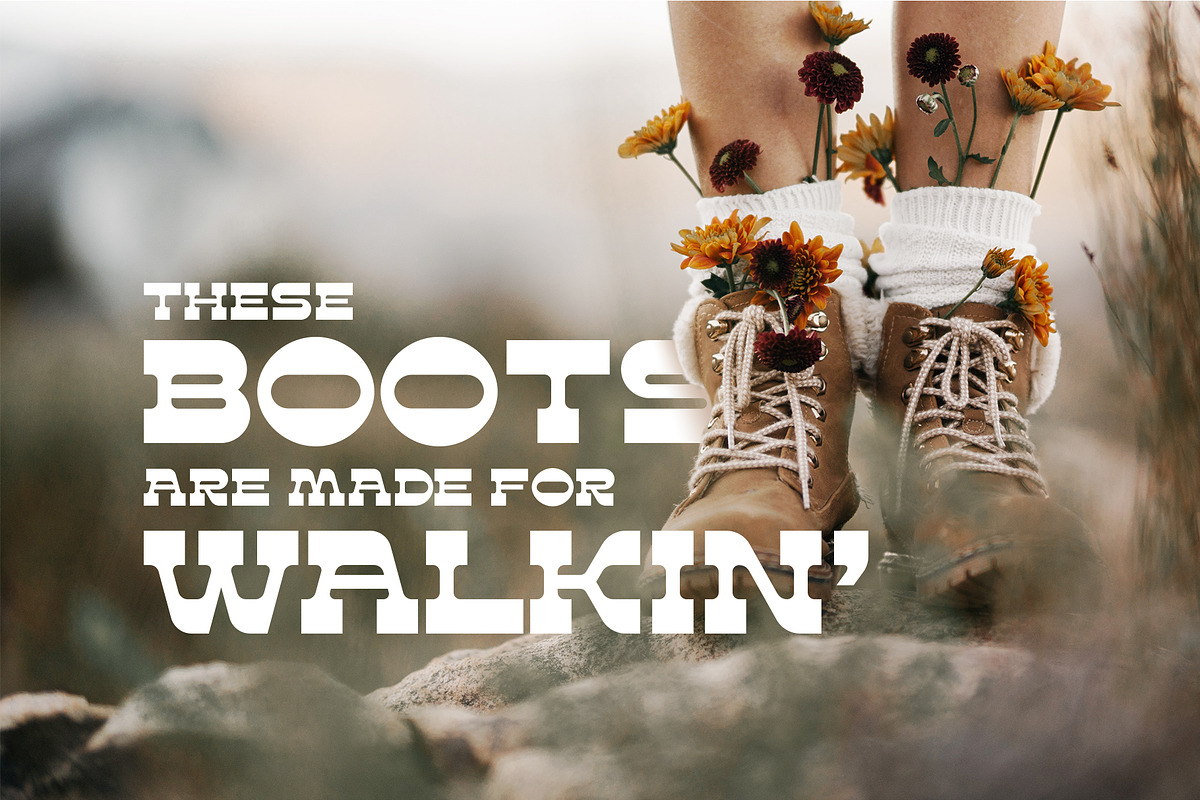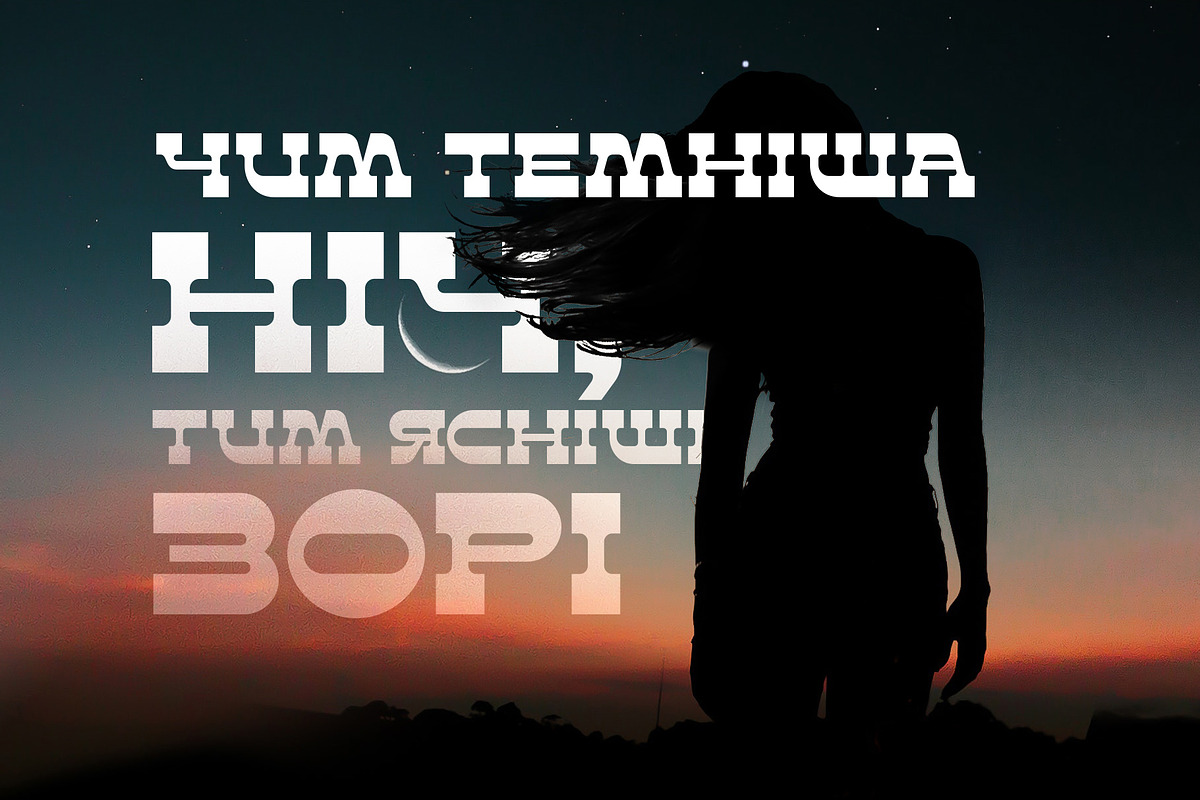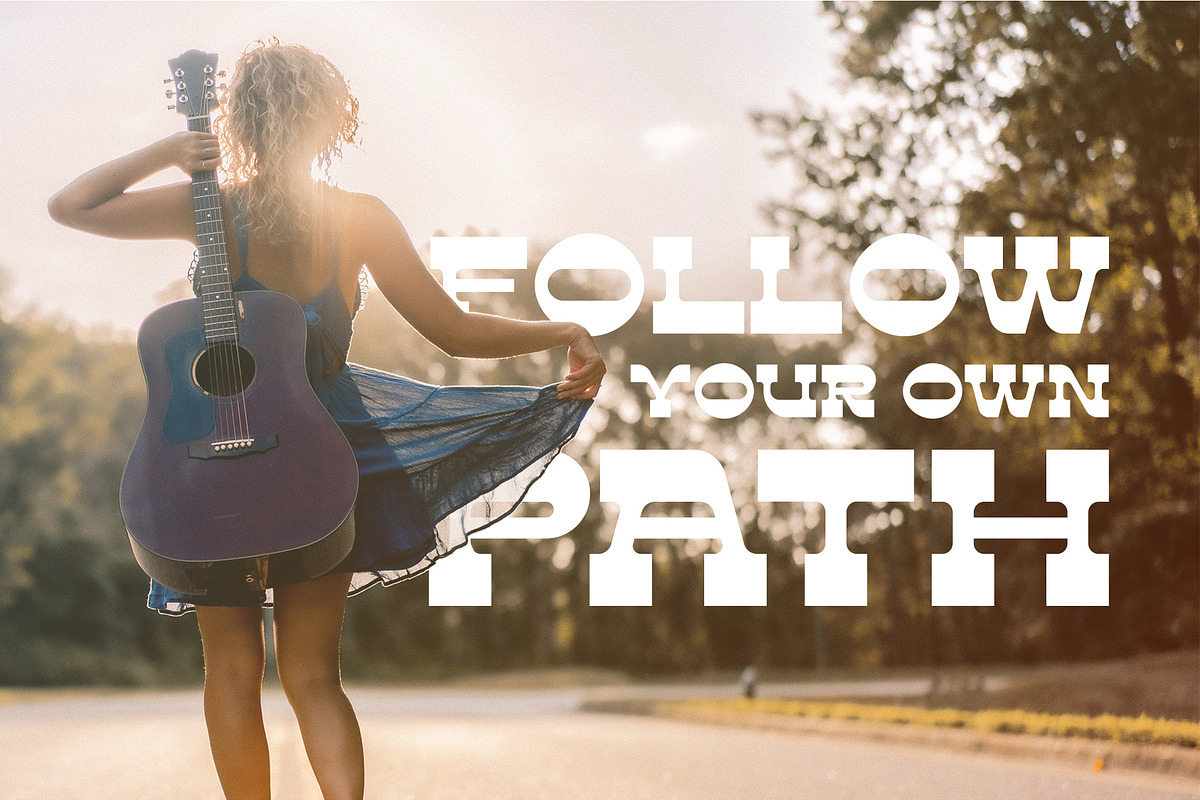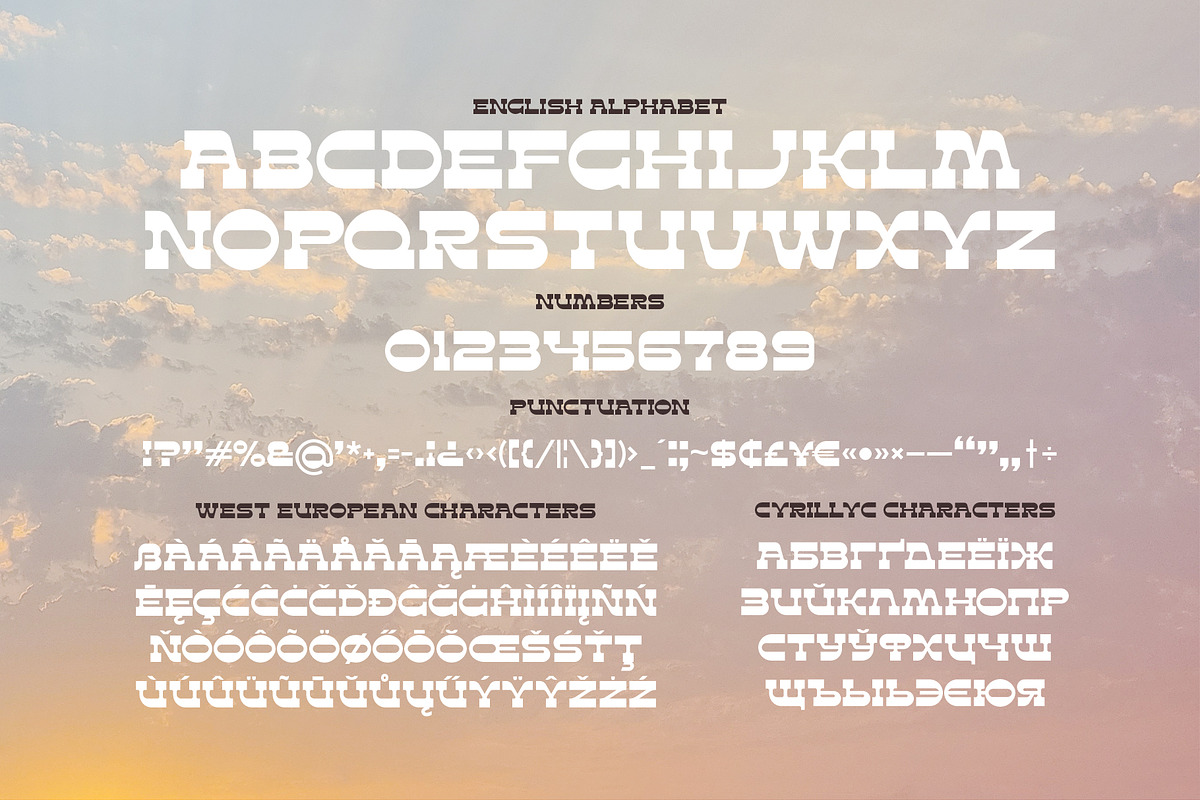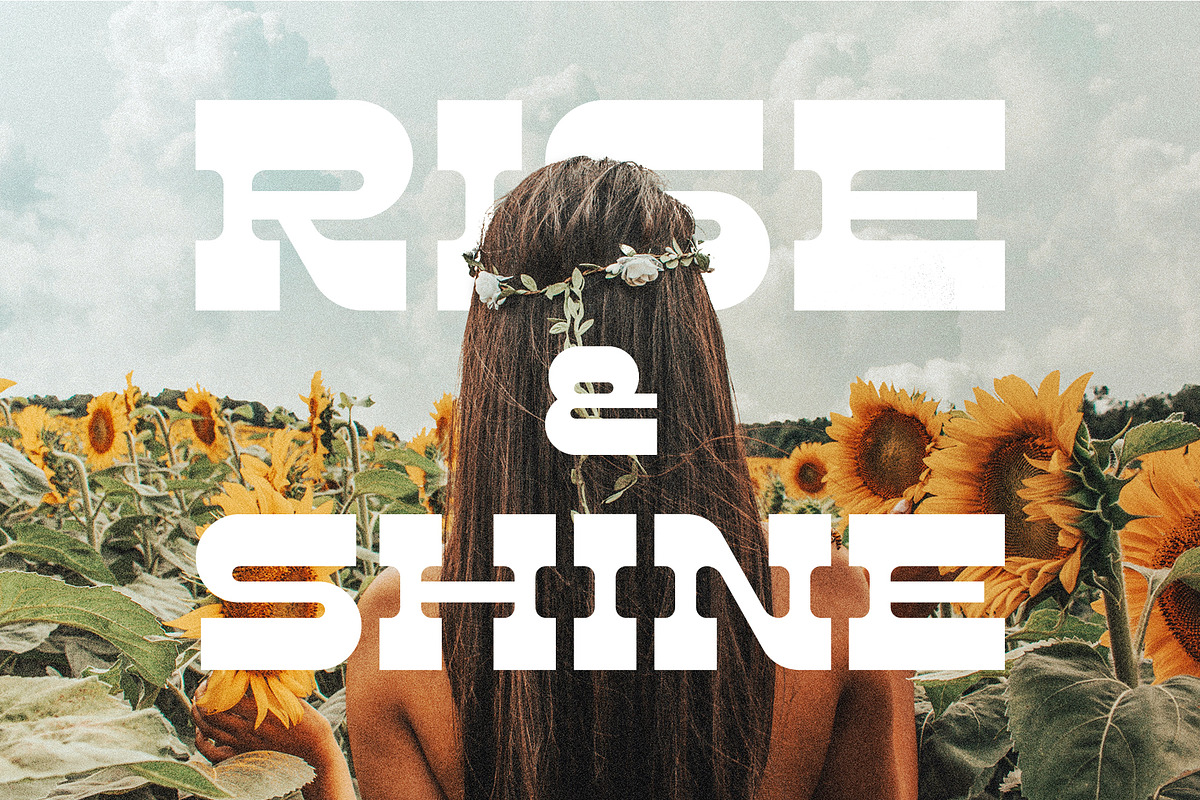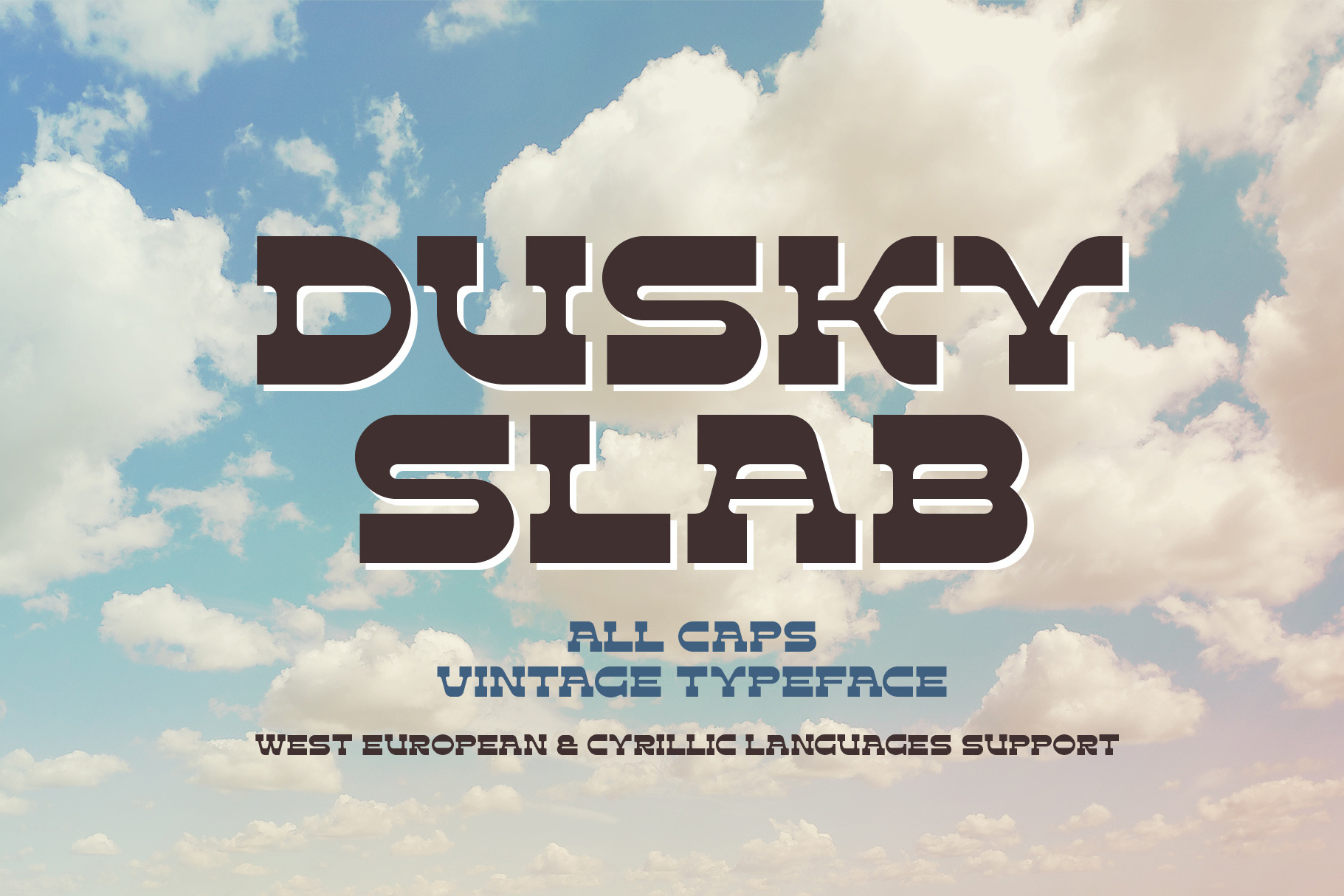
Dusky Slab - vintage font
Hello, introducing a vintage style all caps typeface "Dusky Slab". It's a seventies style font with bold serifs and reverse contrast inspired by western hippie culture. Dusky Slab supports a lot of languages, including west european and cyrillic characters (check out all available symbols on the last screenshot).